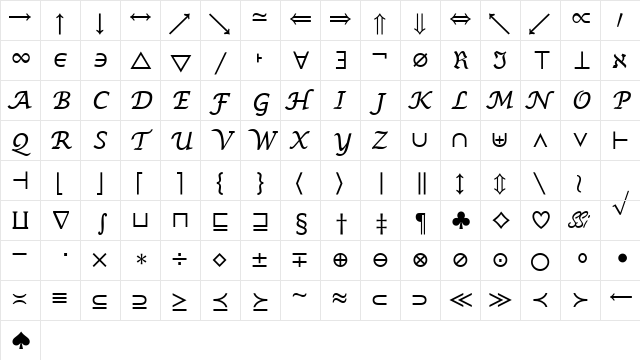
Insight Math Symbol SSi Symbol
Design Context for Insight Math Symbol SSi Typeface
Insight Math Symbol SSi offers clean, dependable letterforms without strong stylistic allegiance, making it a practical choice for designers who need flexibility.